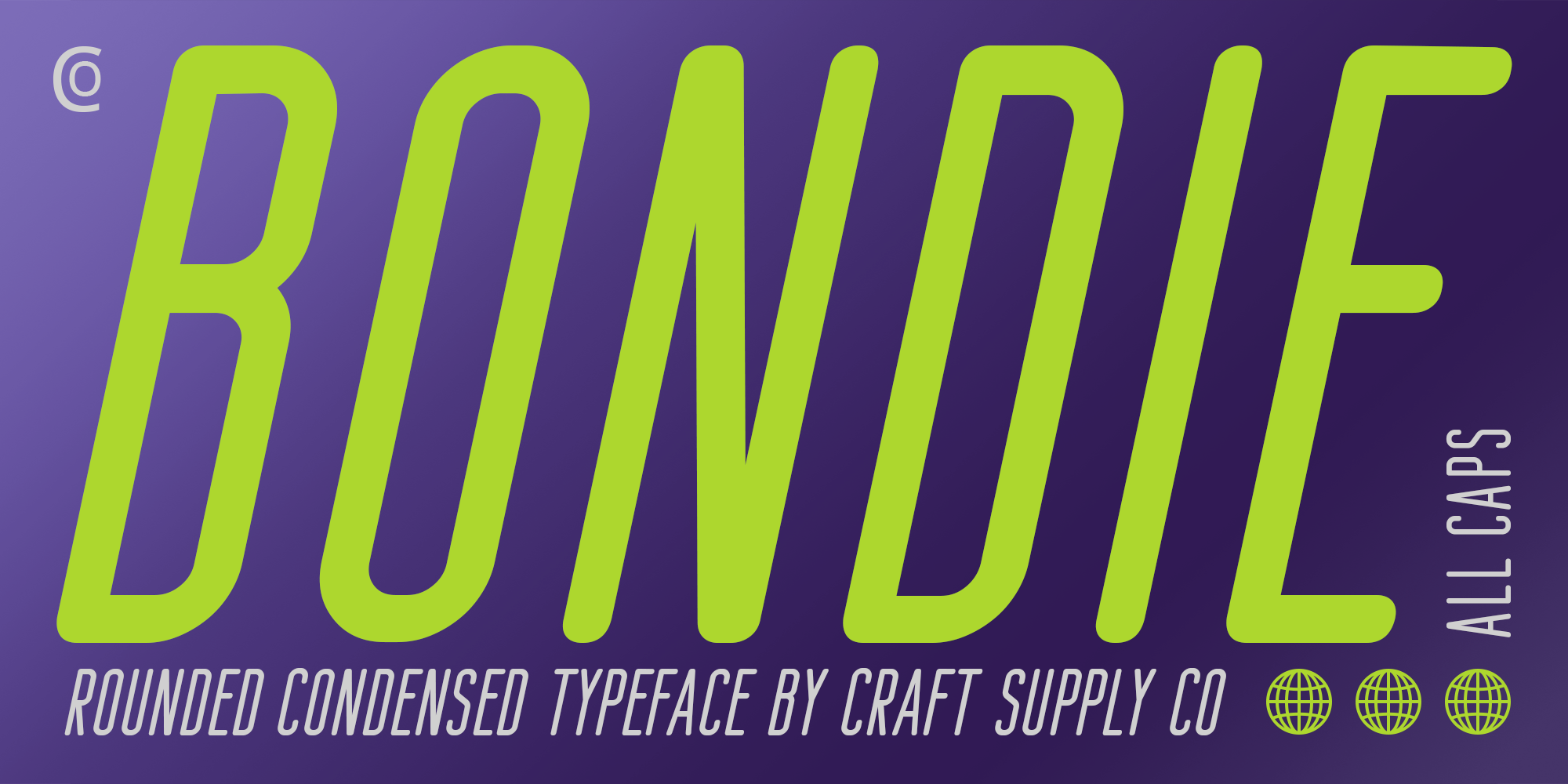
Bondie Rounded Font is perfect for friendly children's brands, approachable healthcare communications, welcoming daycare center signage, organic food product packaging, family-friendly restaurant menus, community center materials, pet care service branding, and warm hospitality marketing. This inviting typeface excels in applications where warmth, accessibility, and gentle appeal are essential for creating comfortable experiences that connect with audiences who value kindness, community, and the reassuring comfort of friendly, approachable design.
What makes Bondie Rounded Font so exciting is its wonderful ability to convey genuine warmth and approachable friendliness through soft, rounded letterforms that invite connection and trust. The font features gentle, curved characteristics with no sharp edges that create a sense of safety and comfort. Its welcoming character conveys care, trustworthiness, and gentle strength - essential qualities for brands serving families, communities, and caring professions who prioritize human connection, emotional comfort, and the nurturing power of genuine kindness and understanding.
The Bondie Rounded Font family includes multiple friendly weights and approachable variations that enhance its welcoming appeal. Some versions feature extra-soft curves and generous spacing that maximize comfort and readability, while others provide more structured variants that maintain the font's gentle character with improved performance for professional healthcare applications and commercial family-focused communications.
Whether you're creating branding for healthcare providers, designing materials for family services, or developing marketing campaigns for community-focused businesses, Bondie Rounded Font Free Download provides the genuine warmth your project requires. The font's caring character makes it particularly effective for brands targeting families and audiences who appreciate gentle approaches, emotional comfort, and the healing power of kind, compassionate communication.
Embrace gentle strength with Bondie Rounded Font and bring comforting warmth to your brand communications with typography that celebrates kindness, approachability, and the soft power of genuine human connection.